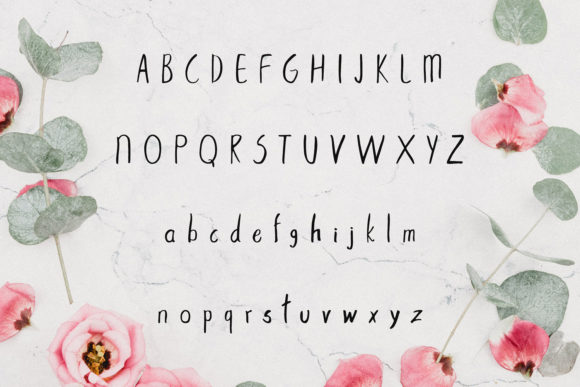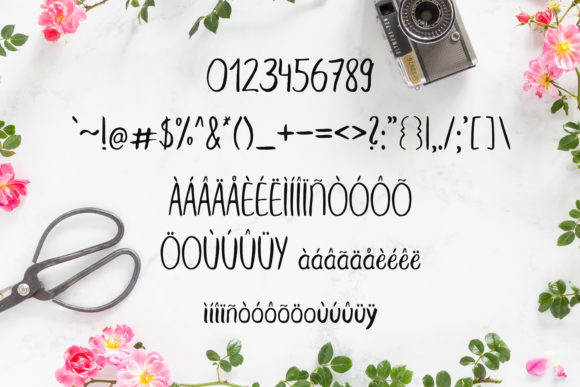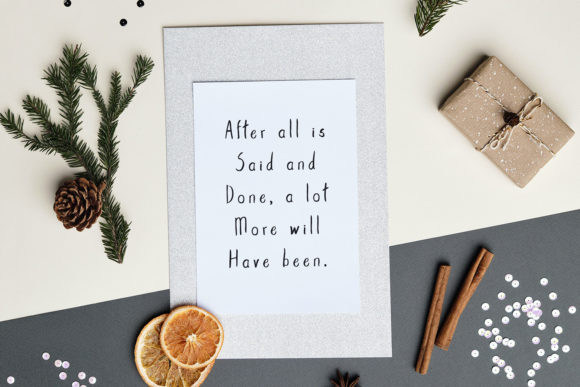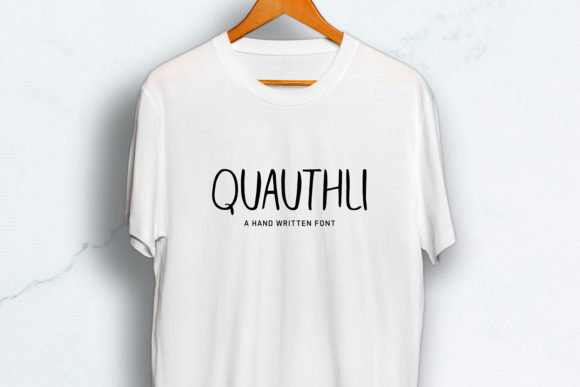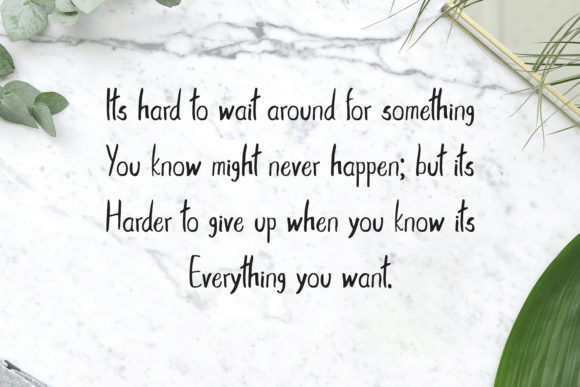
Introduction to Quauthli Font
Do you remember the thrill of creating a handmade sign for your classroom or living room, only to have it get scribbled on by curious little hands? Those moments may have been a bit chaotic, but they’re also what inspired the creation of the Quauthli Font – a charming and authentic handwritten font that brings a touch of whimsy to any design project.
Whether you’re a seasoned graphic designer or a DIY enthusiast, the Quauthli Font is an invaluable resource for adding a personal and realistic feel to your creative projects. With its free download option and transparent background, you can easily integrate it into your designs without any hassle. From chalkboard quotes to teaching materials, this high-quality font is a must-have for anyone looking to elevate their design game.
What sets the Quauthli Font apart is its versatility and authenticity – it’s the perfect blend of modern design and classic charm. With its simple yet effective lettering, you can create stunning visual elements that add depth and personality to your designs. Whether you’re working on a large-scale project or a small, intimate piece, the Quauthli Font is sure to become your go-to design resource.
Key Features of Quauthli Font
- High-quality design resource with a unique, artistic style suitable for creative projects.
- Features a transparent background, making it easy to use with images and other design elements.
- Includes multiple font weights and styles, allowing for flexibility in design applications.
- Designed with a high-resolution (300 DPI) for use in print and digital media.
- Perfect for designers and artists looking for a distinctive, high-quality design resource for their next creative project.
Honest Review: Quauthli Font
I recently stumbled upon the Quauthli Font while searching for a unique design resource for a creative project. I was drawn to its quirky and modern aesthetic, making it perfect for anything from a bold logo to a playful social media campaign.
- High-quality glyphs and characters make the font look professional and polished.
- Transparent background options make it easy to integrate into various design elements.
- Unique and modern design makes it stand out from more generic fonts.
- Font family is relatively small, which might limit its versatility for certain projects.
- Lack of additional font weights and styles could be a drawback for designers who prefer more options.
Overall, I was pleasantly surprised by the Quauthli Font. While it may not be the most versatile font family, its unique design and high-quality glyphs make it a valuable addition to any designer’s toolkit. If you’re looking for a fun and modern font for your next creative project, the Quauthli Font is definitely worth checking out.
Tips for Getting the Most Out of Quauthli Font
Quauthli Font is a high-quality design resource that can be used for a variety of creative projects. To get the most out of it, consider using it for projects that require a unique and eye-catching font. You can also experiment with different font sizes, colors, and alignments to create a custom look. Additionally, consider pairing Quauthli Font with other design elements, such as images or graphics, to create a visually appealing design.
Common Use Cases for Quauthli Font
Quauthli Font is a versatile design resource that can be used for a variety of purposes. Some common use cases include: